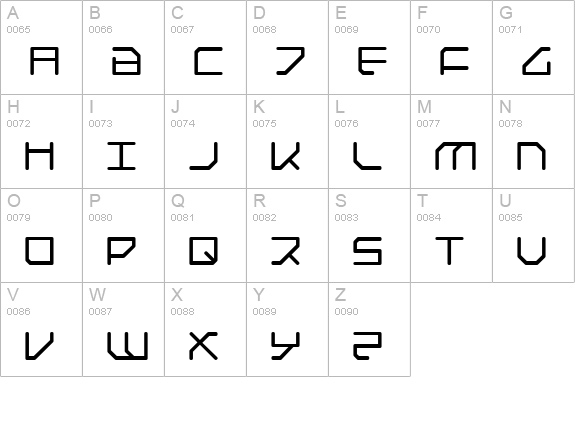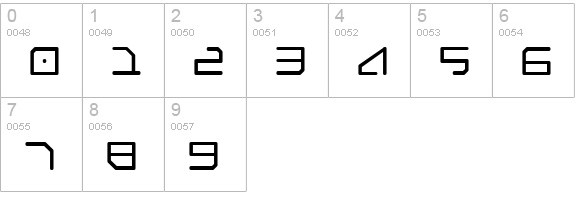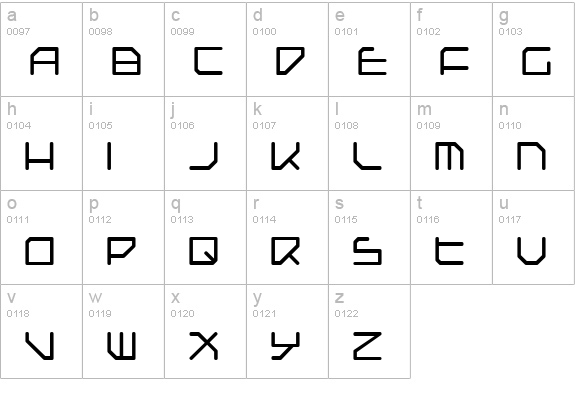
Federapolis font is a striking and modern typeface that exudes sophistication and elegance. With its clean lines and sleek design, this font is perfect for creating eye-catching designs for various projects. Whether you're working on branding, advertising, or editorial design, Federapolis font will elevate your work to a whole new level. This versatile font comes in a range of weights, making it suitable for a wide variety of design applications. From bold headlines to elegant body text, Federapolis font delivers a polished and professional look every time. And the best part? Federapolis font is completely free to download at FontsMarket.com. So you can add this stunning font to your collection without breaking the bank. Don't miss out on the opportunity to enhance your designs with the timeless beauty of Federapolis font.